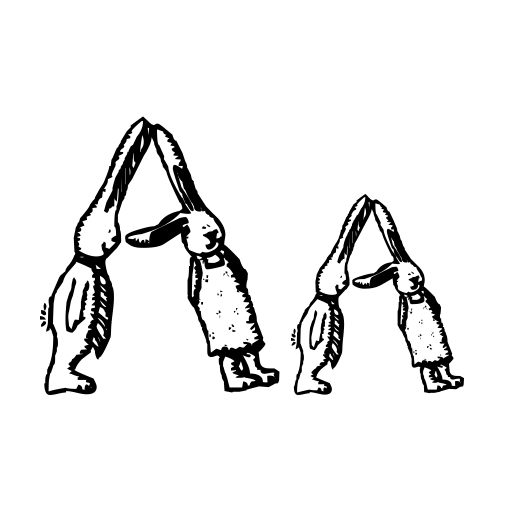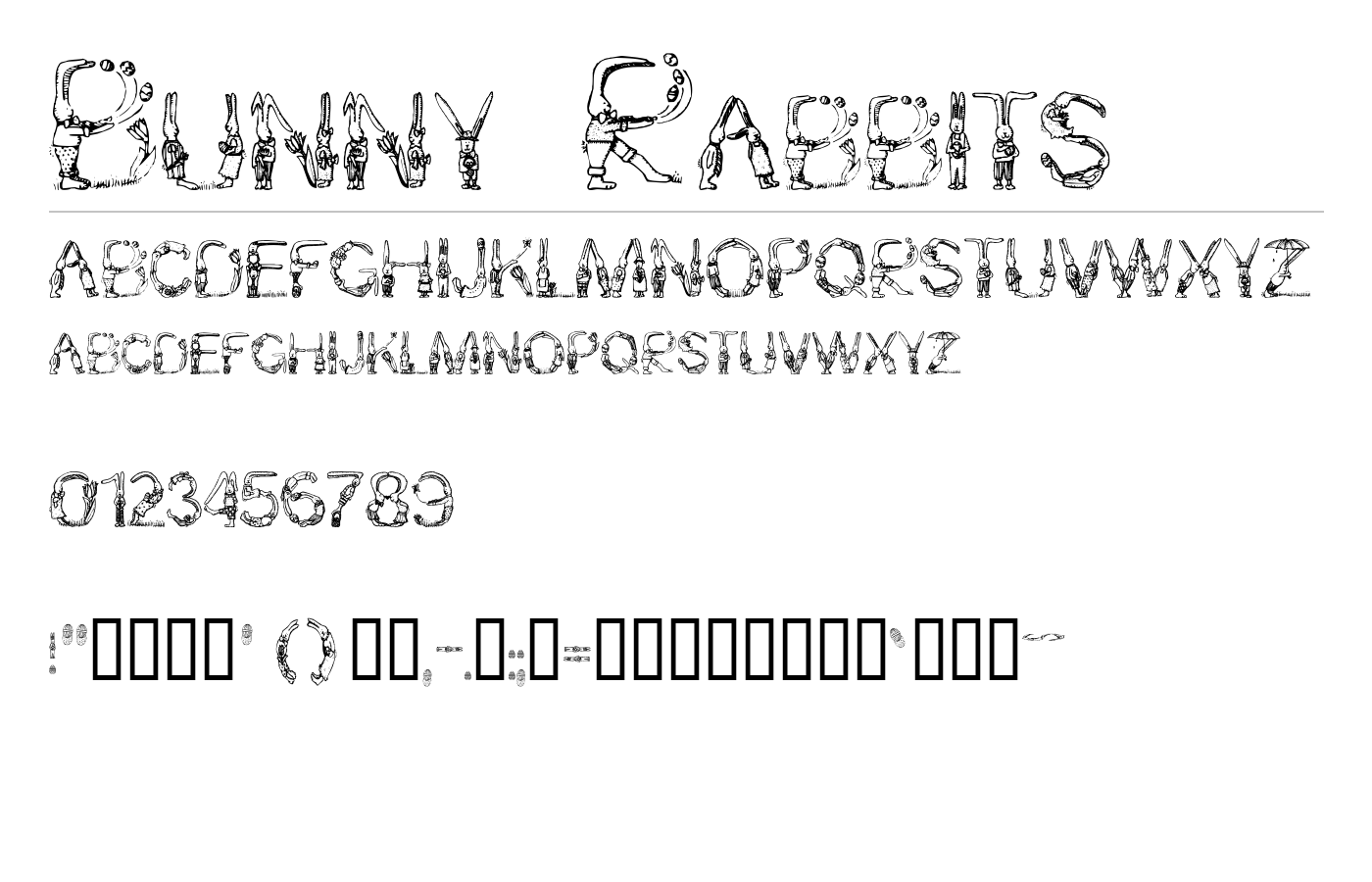
Bunny Rabbits is a playful and whimsical display font featuring hand-drawn uppercase letters formed by charming rabbit illustrations. This decorative, light-weight font with delicate linework offers a unique, creative style perfect for children’s books, playful branding, and fun posters where a quirky, friendly mood is desired. Its detailed, illustrative nature makes it best suited for large headlines or decorative accents rather than body text.
Bunny Rabbits Font
About Bunny Rabbits Font